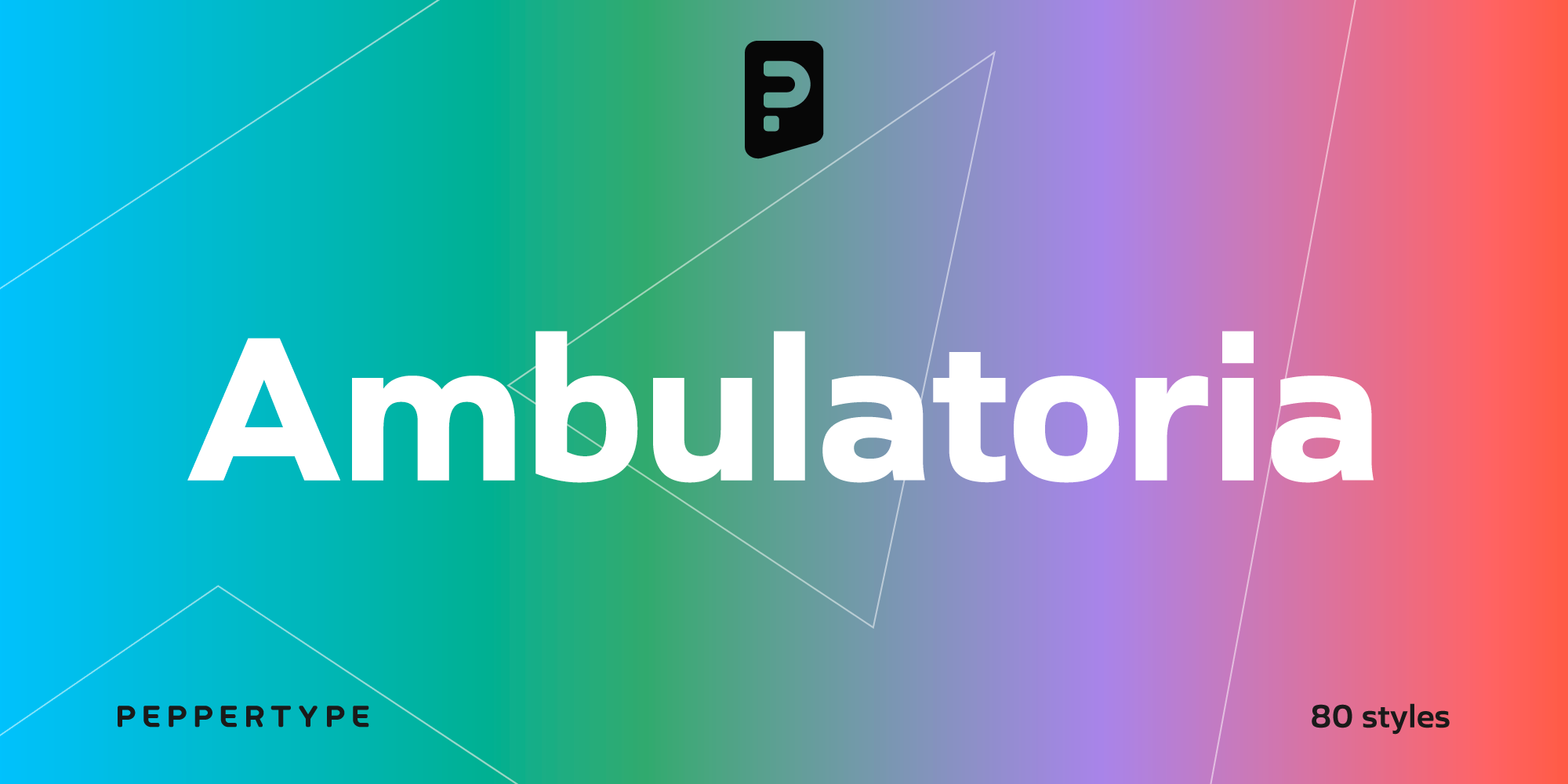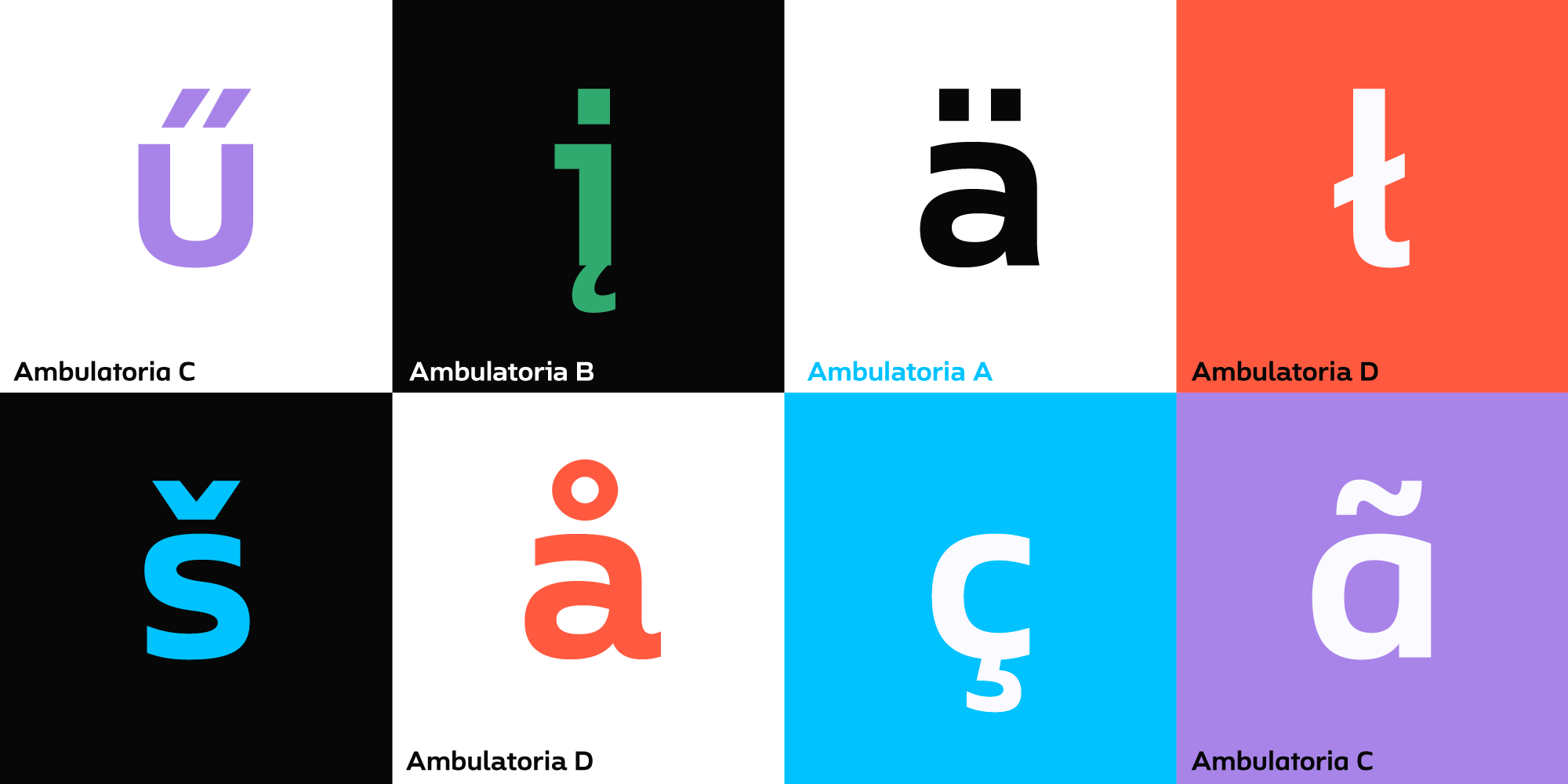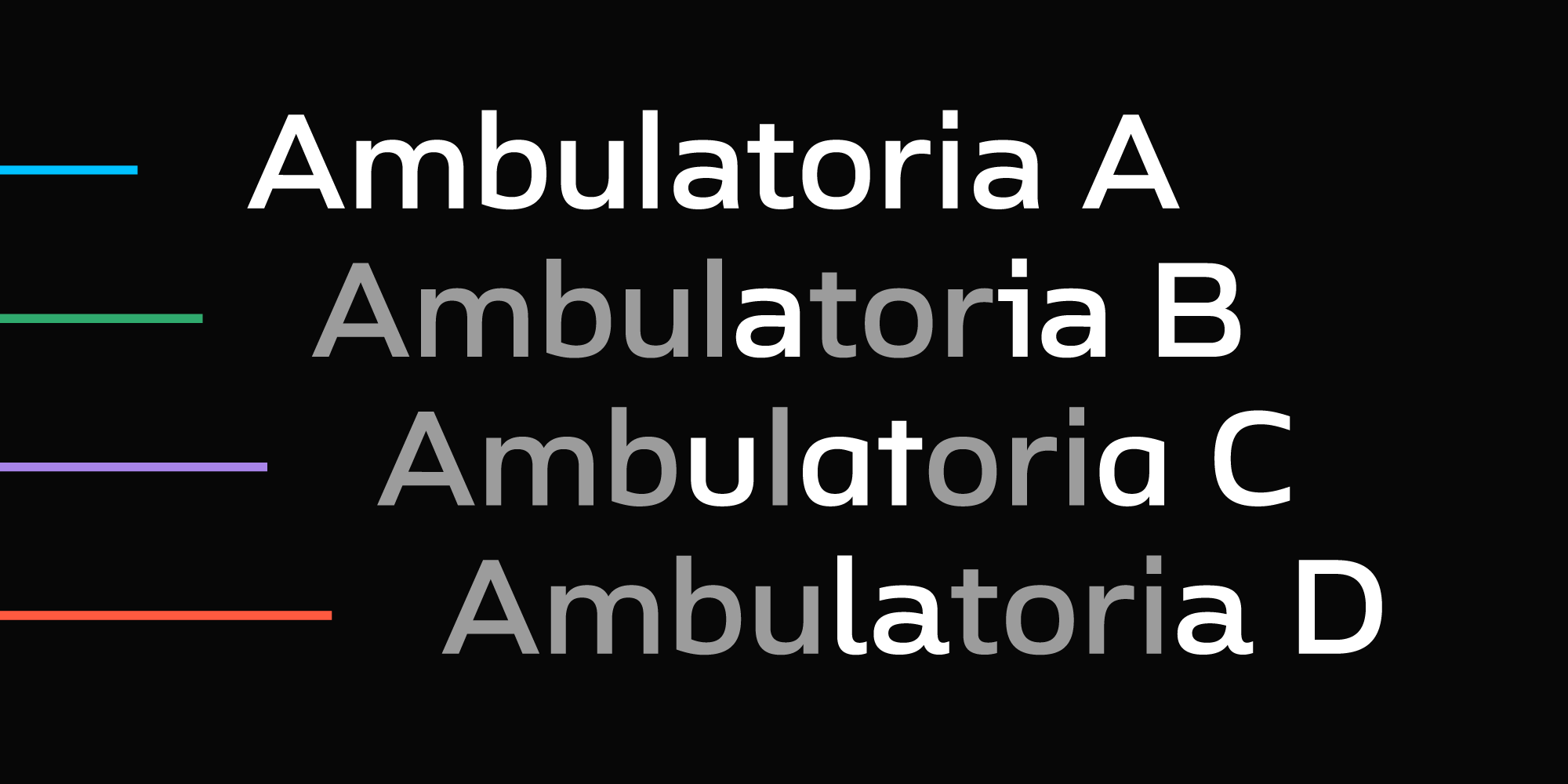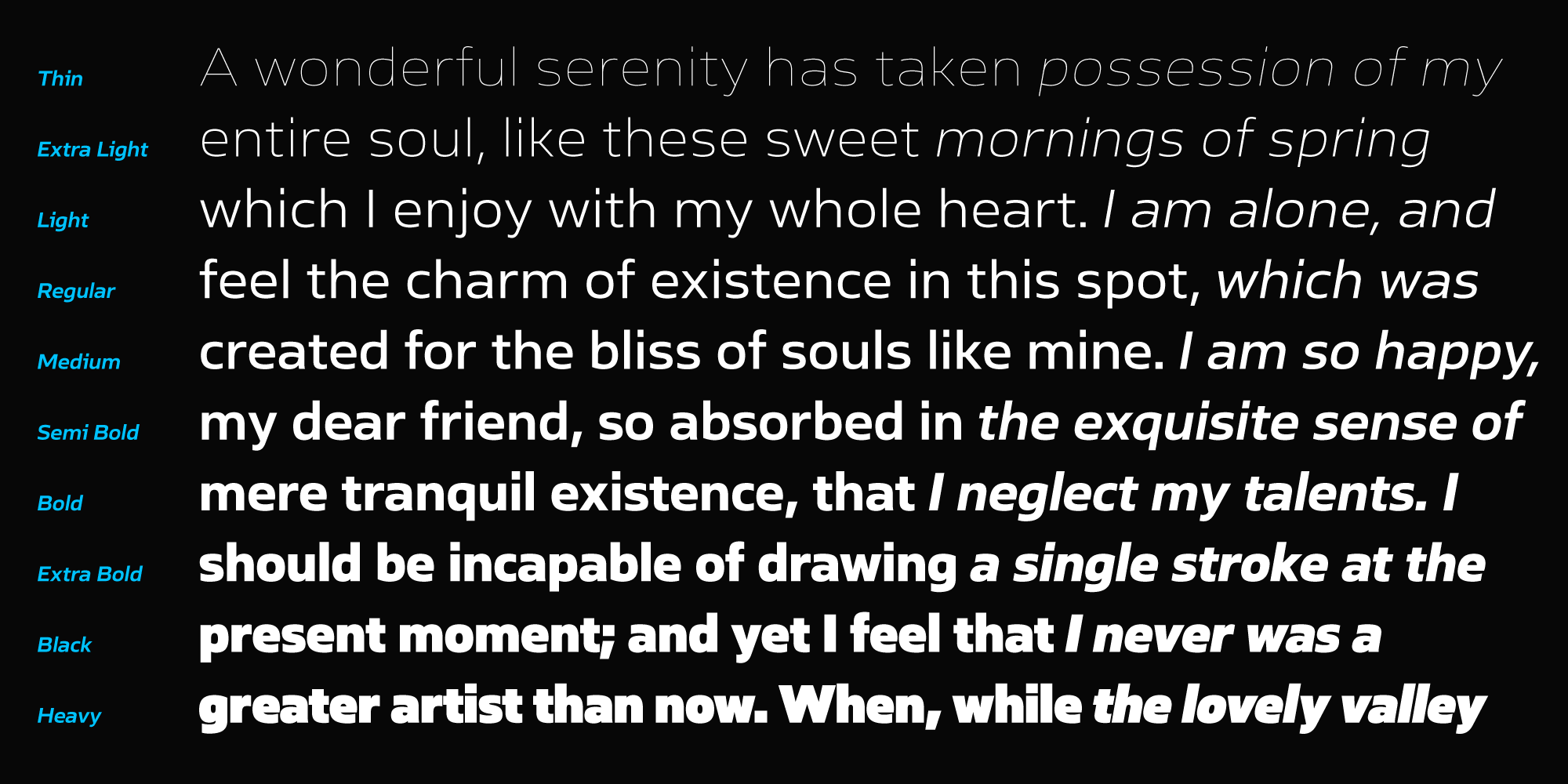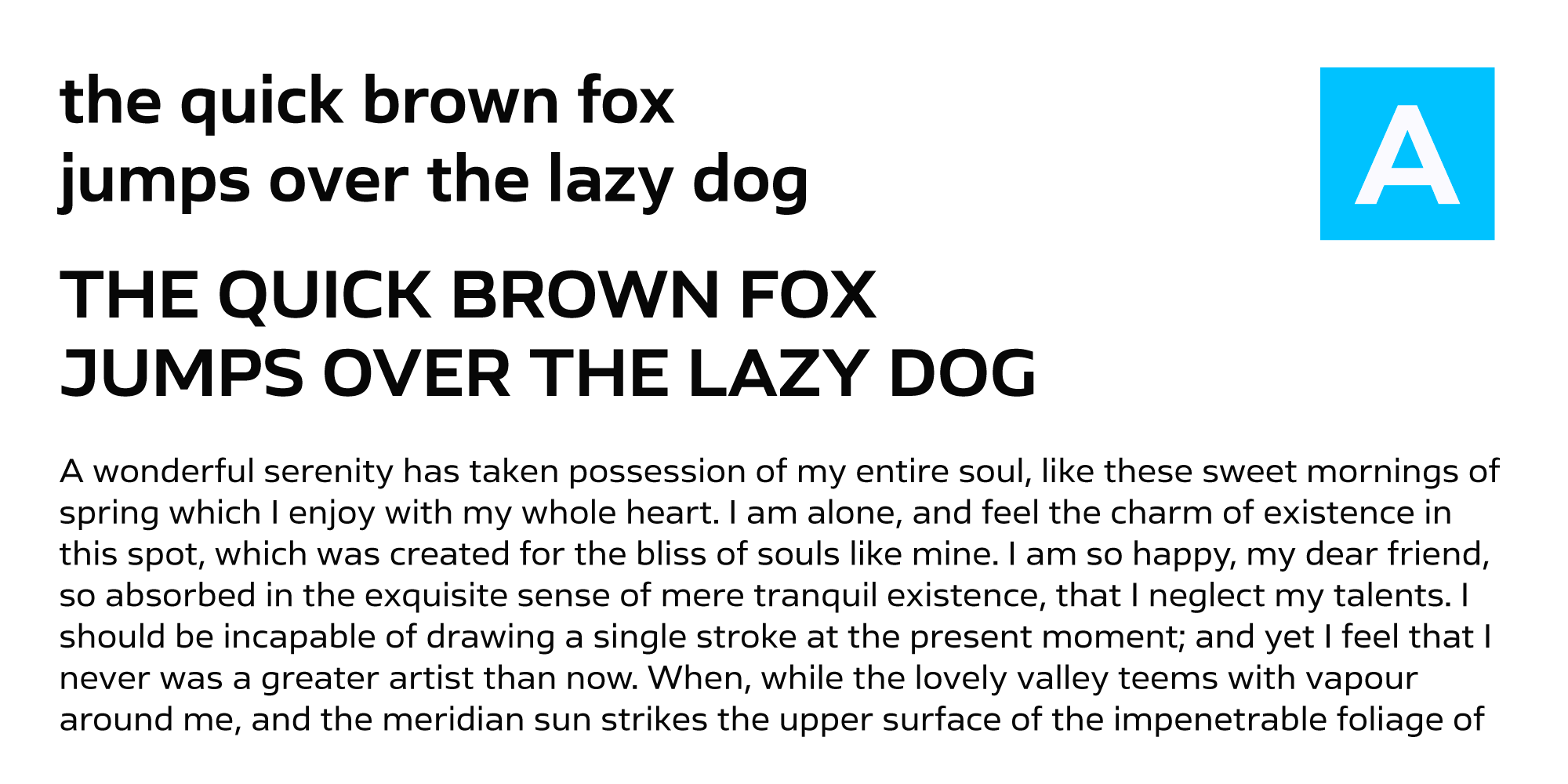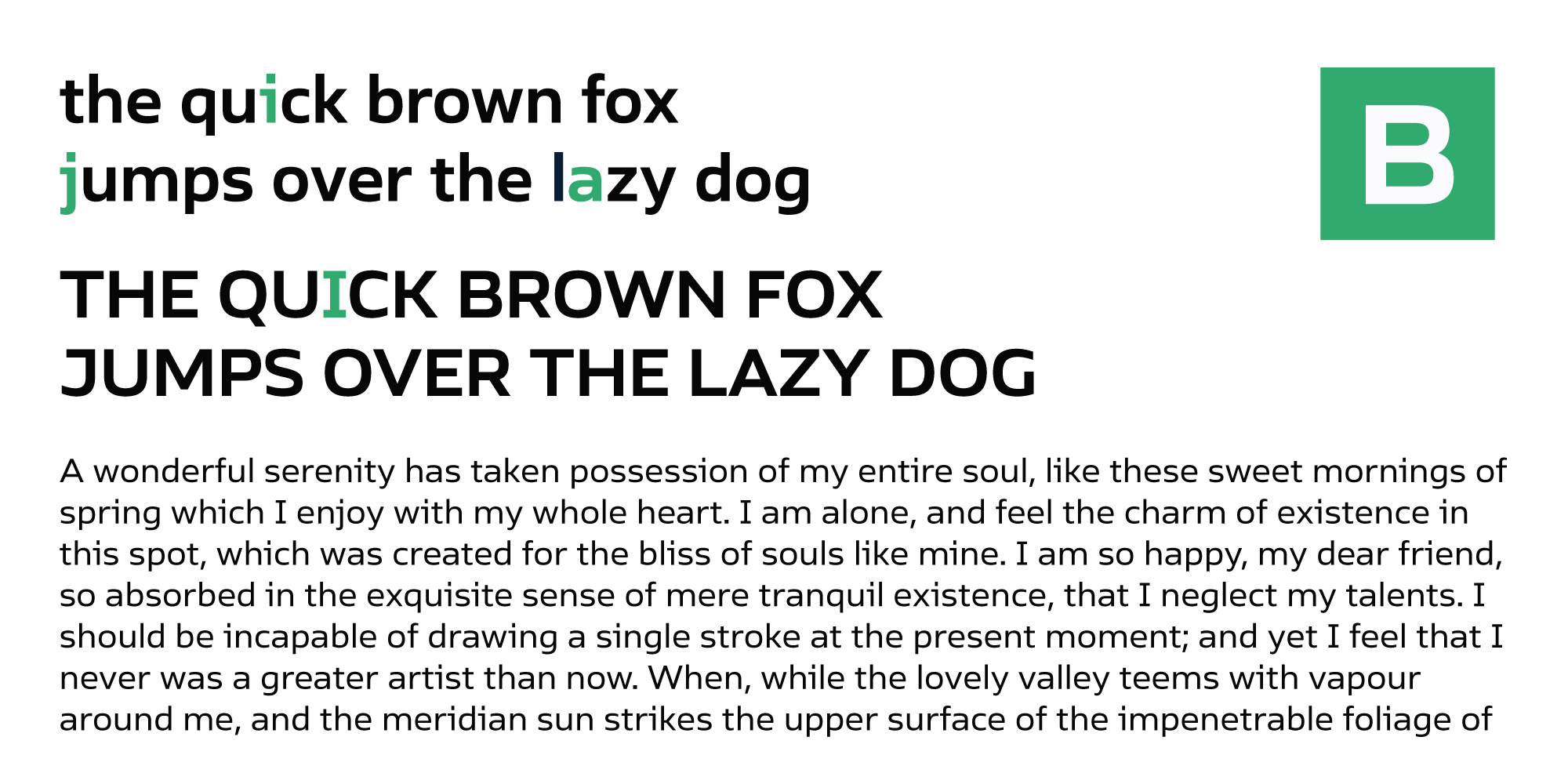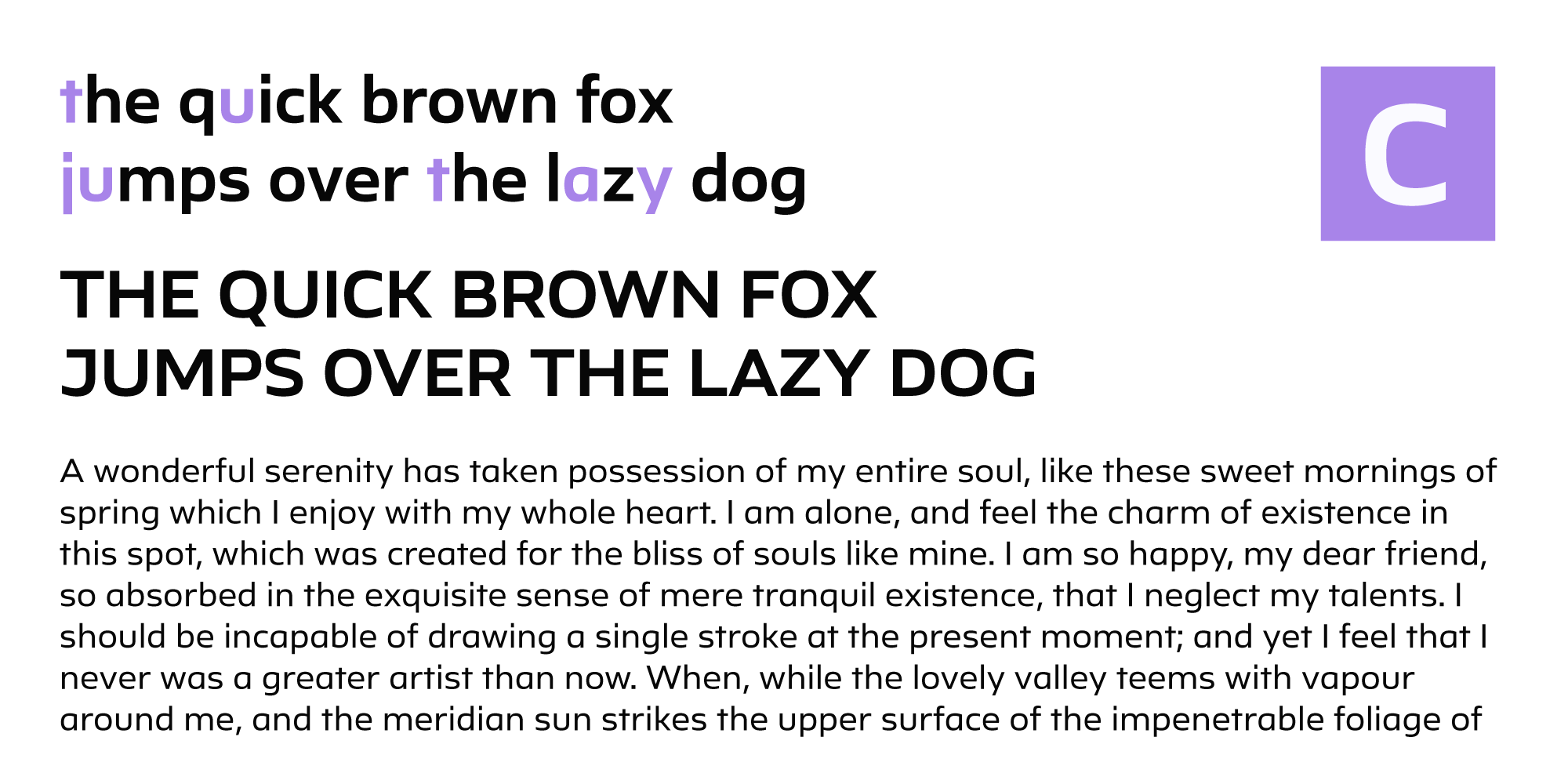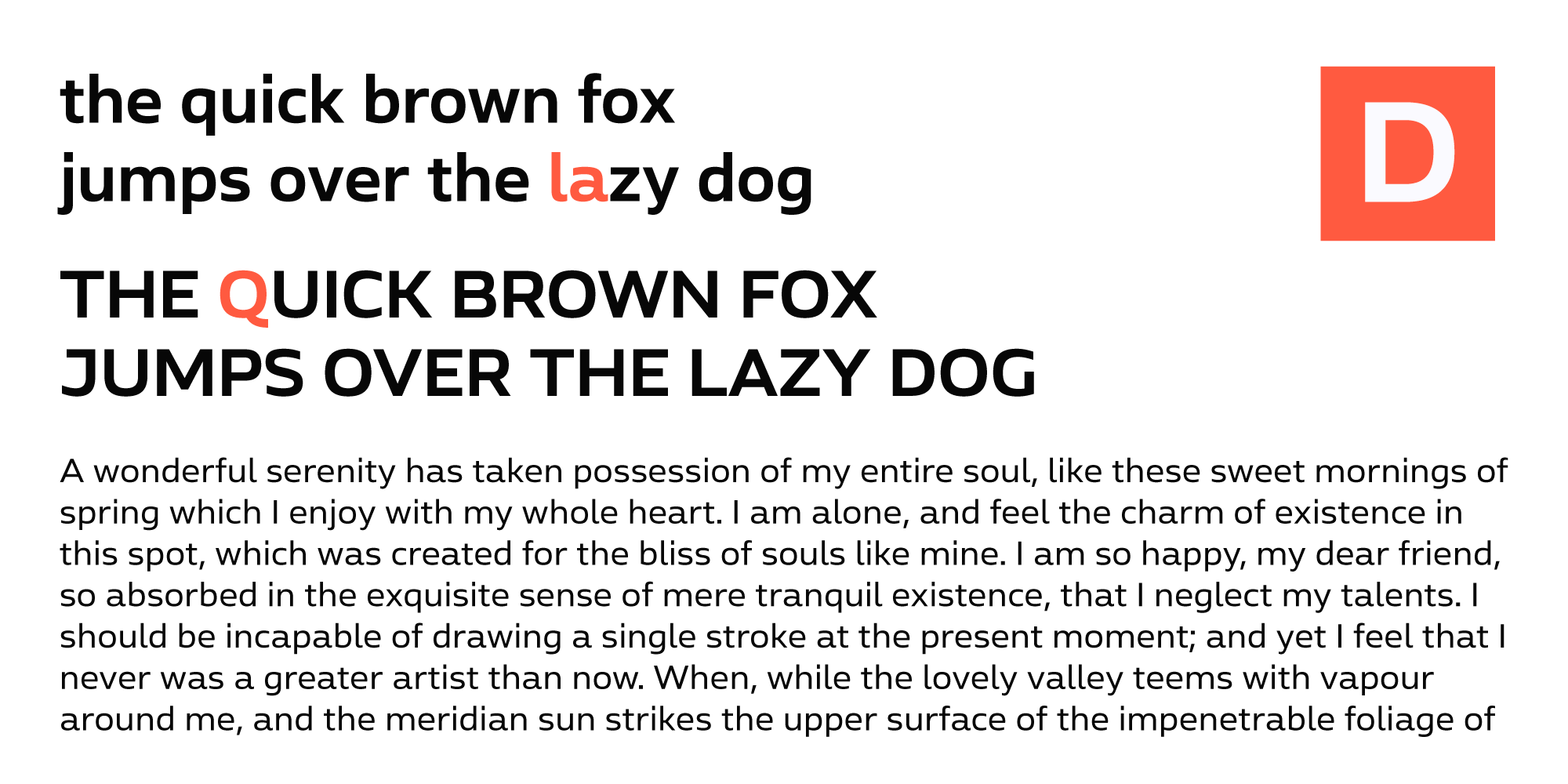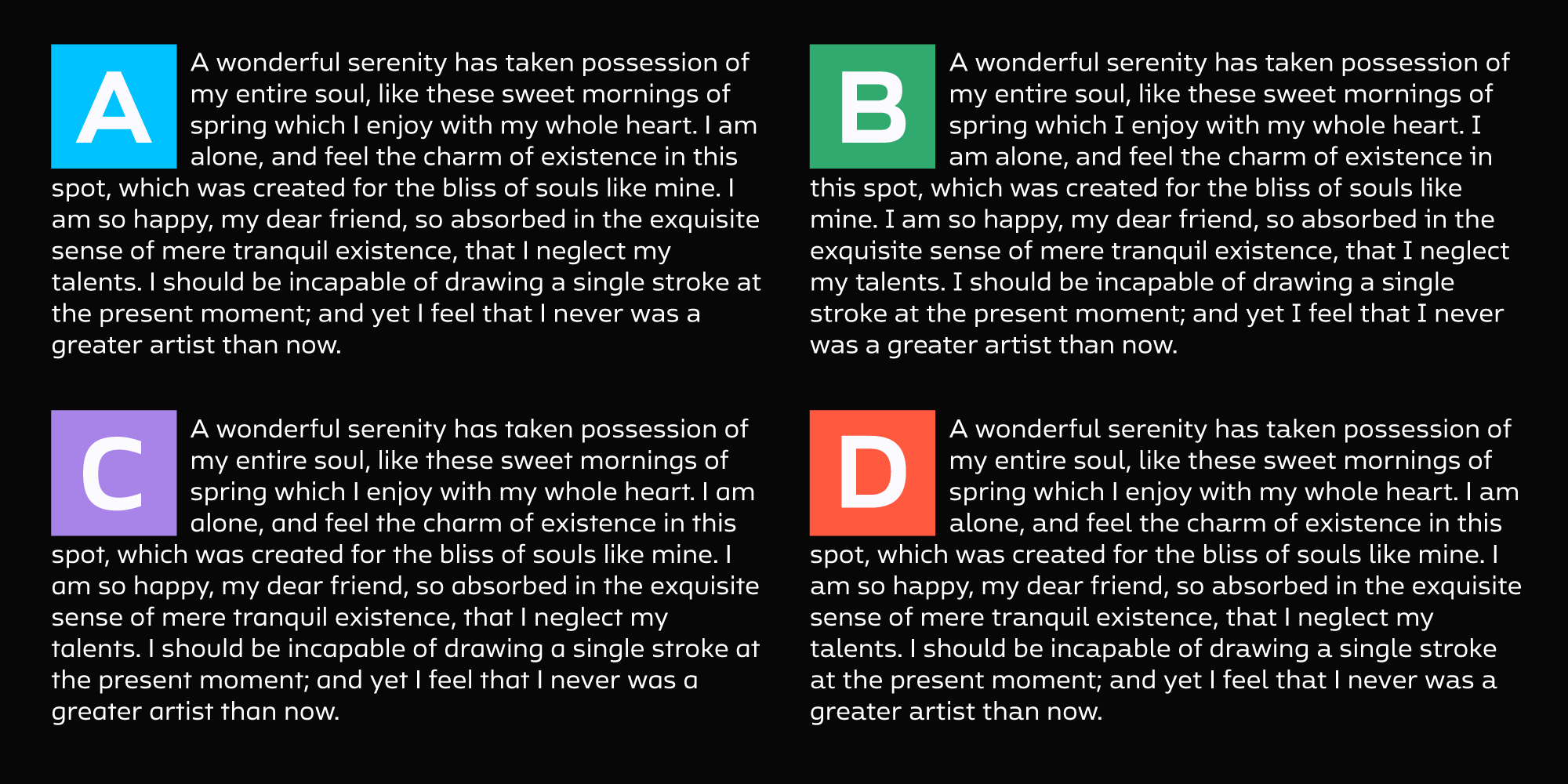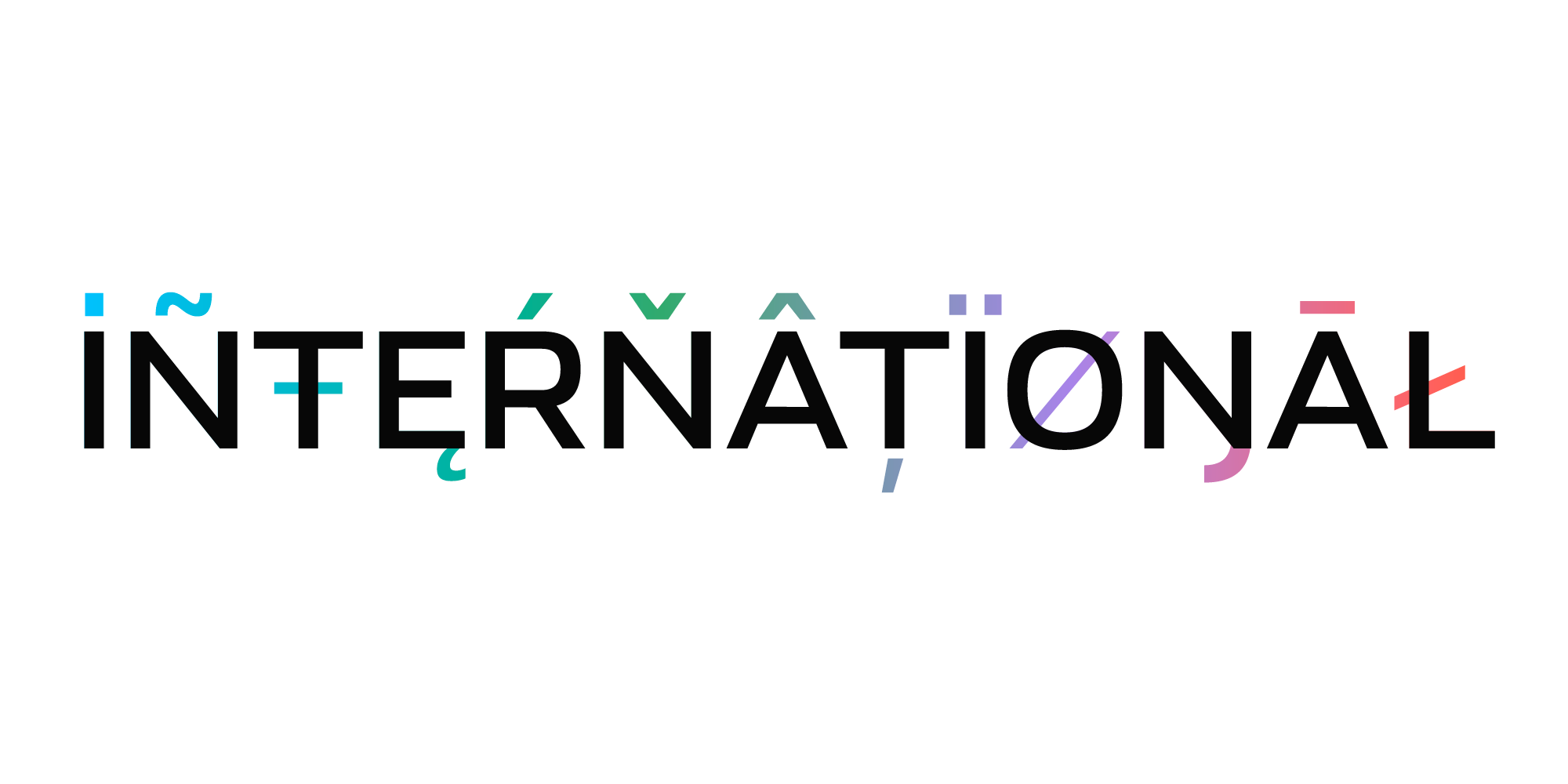
Ambulatoria C
Ambulatoria is a sturdy open aperture sans-serif that comes in four variations. Each variation, A, B, C, and D, contains alternative variants for certain glyphs that allow the designer to change character and texture of the text.
The font family contains 80 fonts altogether, each sporting rich language support including pan-European Latin and Cyrillic. The typeface is intended to work in both large and small text sizes, which makes it a versatile workhorse.
Designed by Oleh Lishchuk